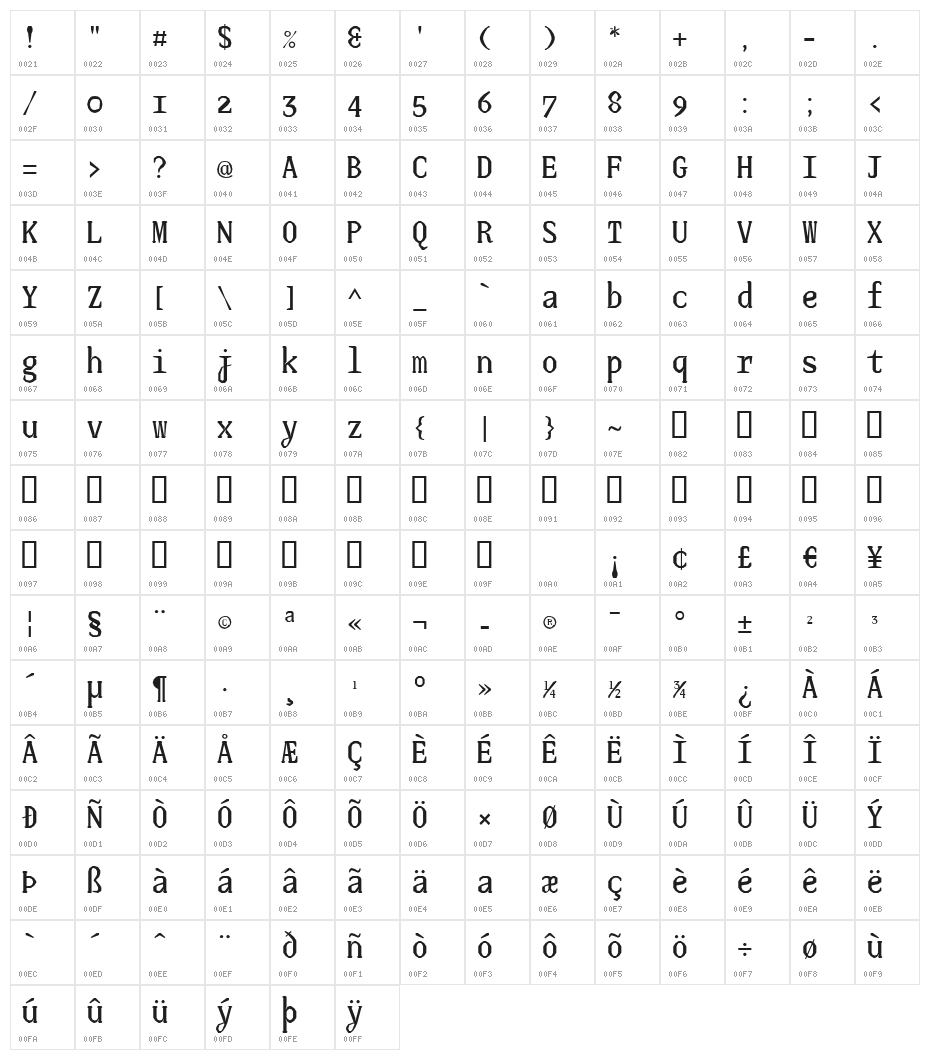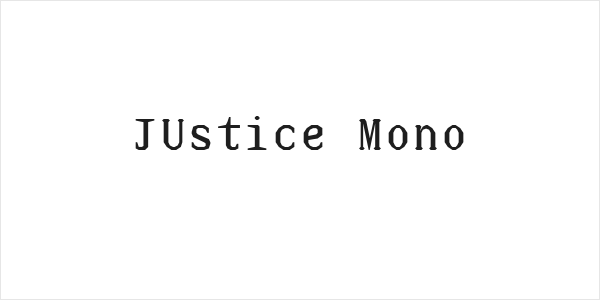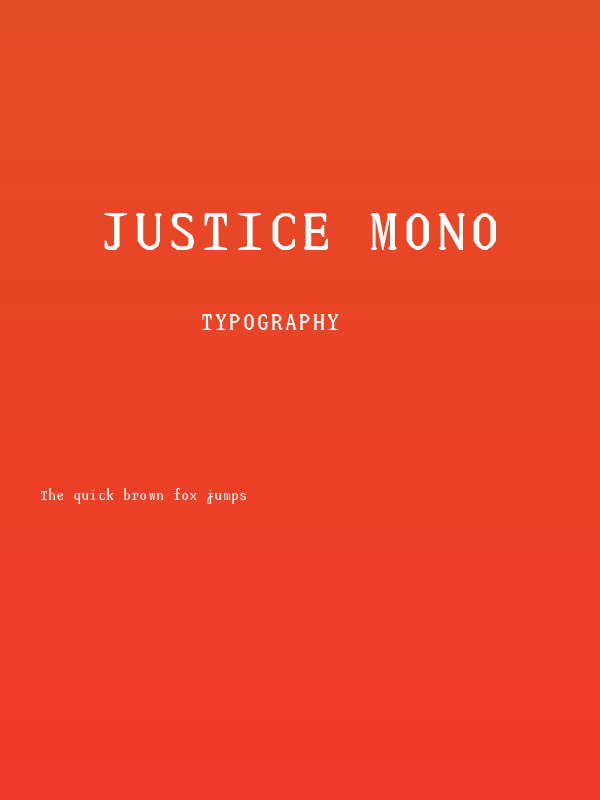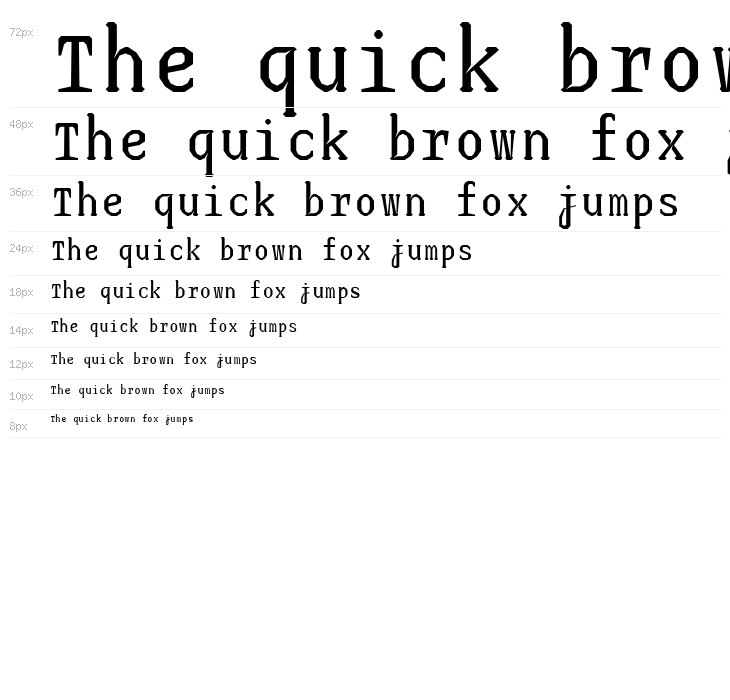
JUstice Mono Font
JUstice Mono Description
This typeface features a monospaced design with a distinct, mechanical aesthetic. Each character is evenly spaced, providing a uniform appearance that is ideal for coding and technical documentation. The font exhibits a slab serif style, with bold, block-like serifs that add a touch of robustness and stability. The uppercase letters are tall and commanding, while the lowercase letters maintain a consistent height, enhancing readability. Numbers and special characters are clear and well-defined, making them suitable for various technical applications. The overall design is clean and precise, with a modern yet timeless appeal.